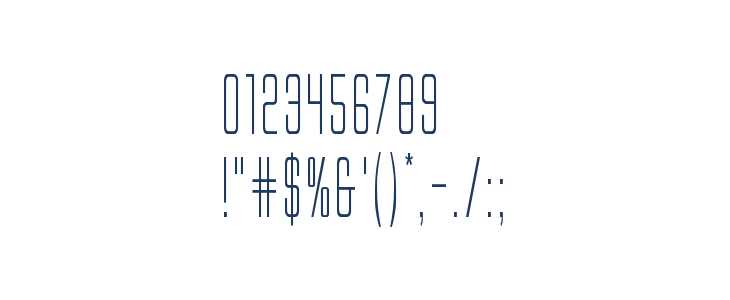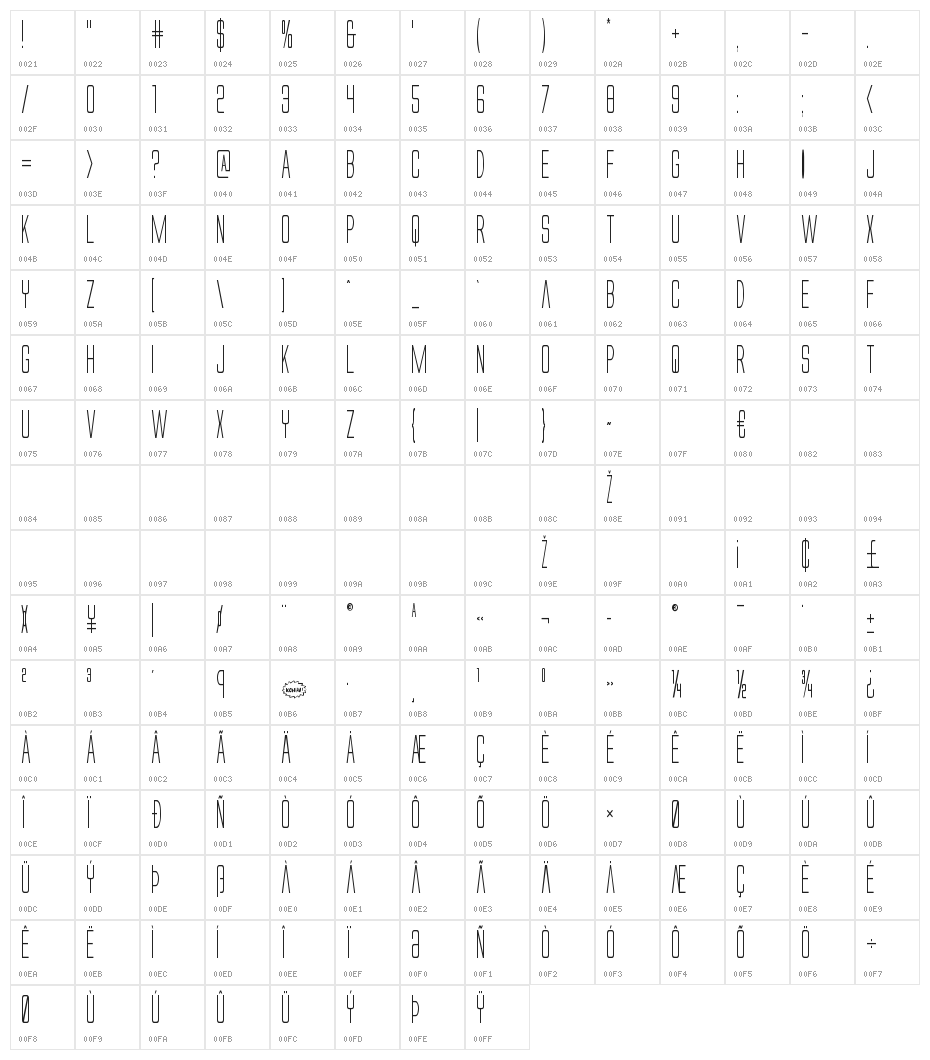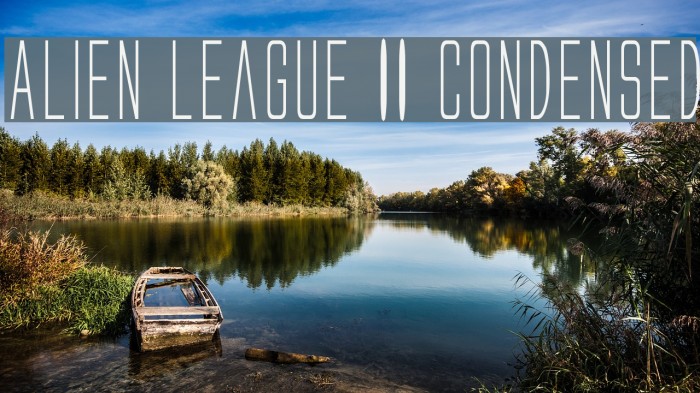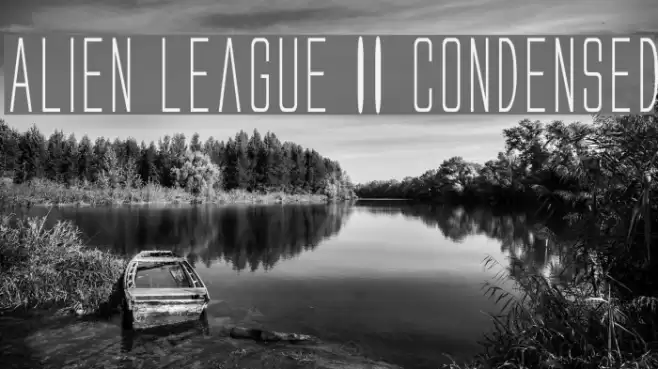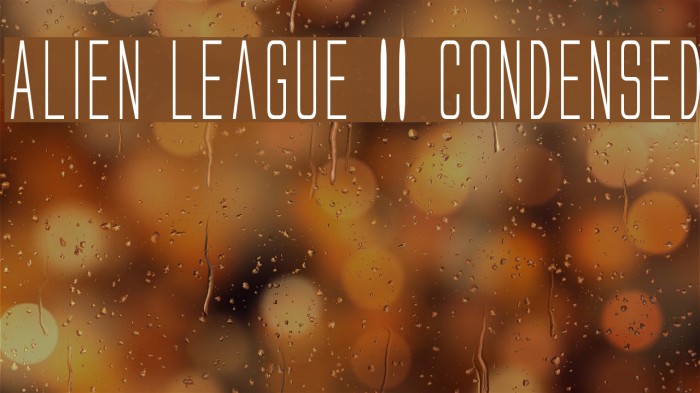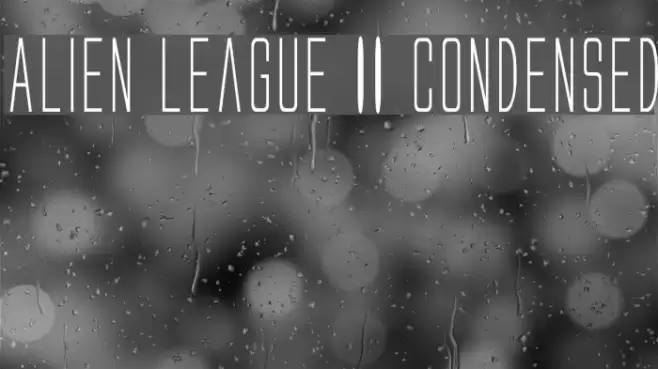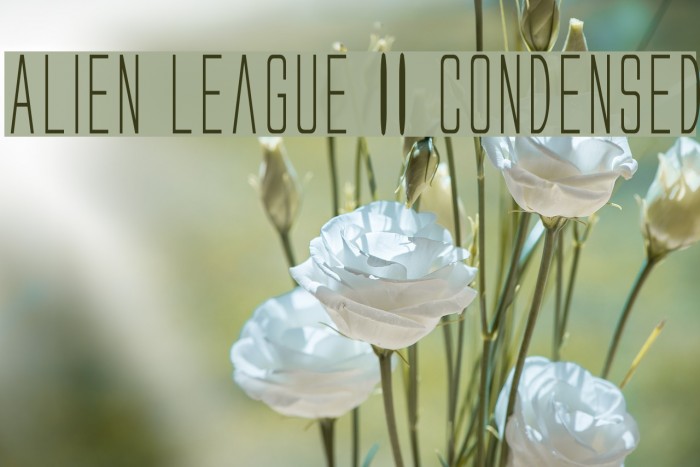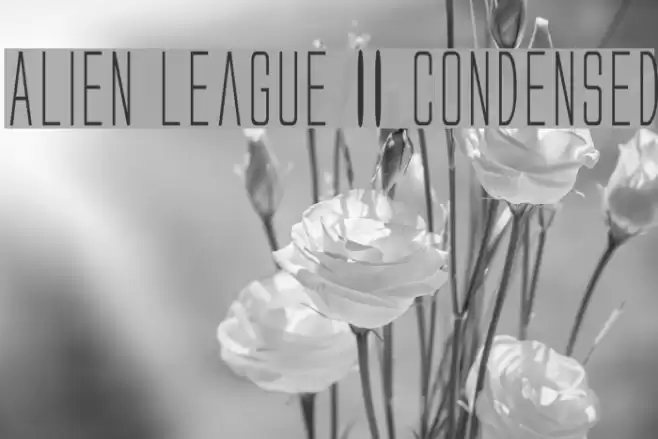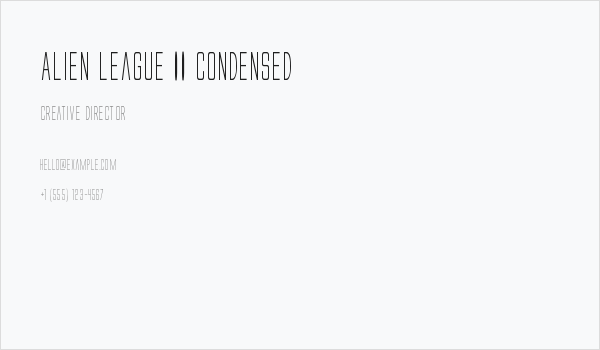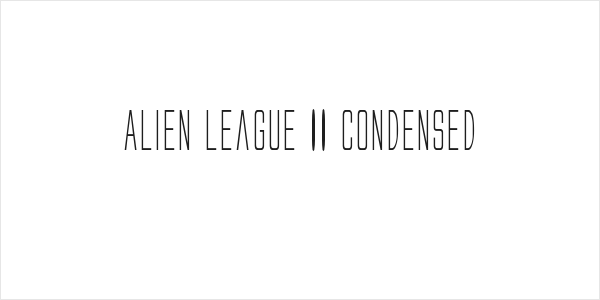
Alien League II Condensed Font
Alien League II Condensed Description
This font features a sleek, futuristic design with tall, narrow characters that give it a distinct, modern appearance. The uppercase and lowercase letters are uniformly condensed, creating a cohesive and streamlined look. The numbers and special characters maintain the same condensed style, ensuring consistency across all text elements. The font's clean lines and minimalistic approach make it suitable for projects that require a contemporary and sophisticated aesthetic. Its unique style is particularly effective in capturing attention and conveying a sense of innovation.
| Proposed Projects | Ideal for sci-fi themed designs, technology branding, modern posters, and innovative product packaging. |